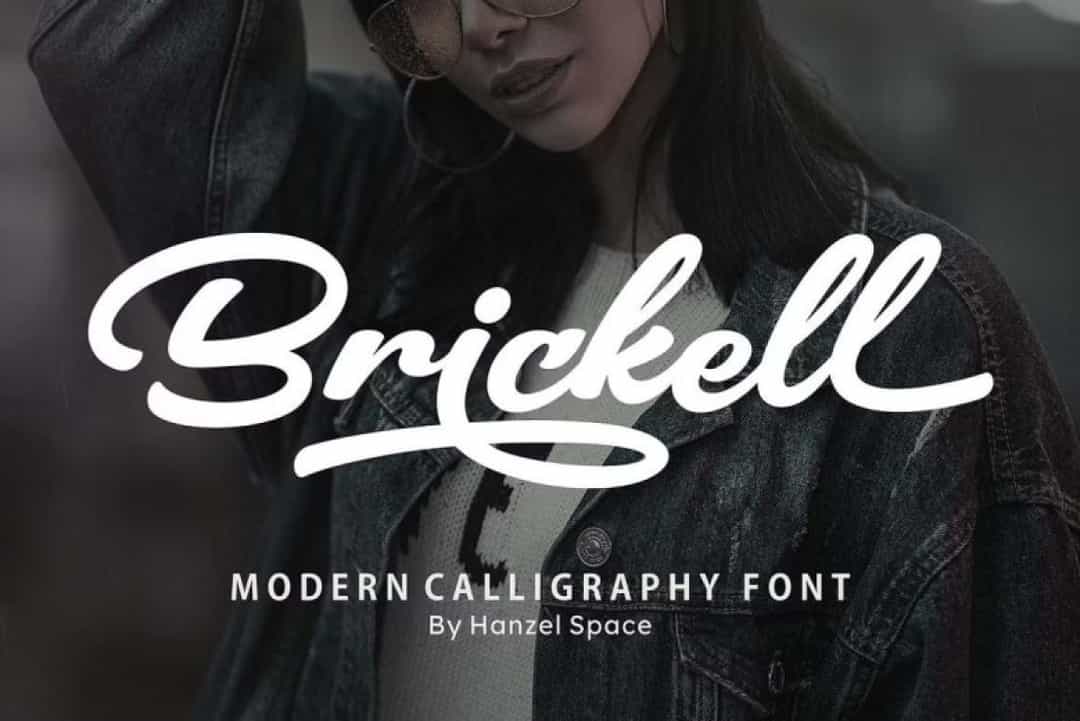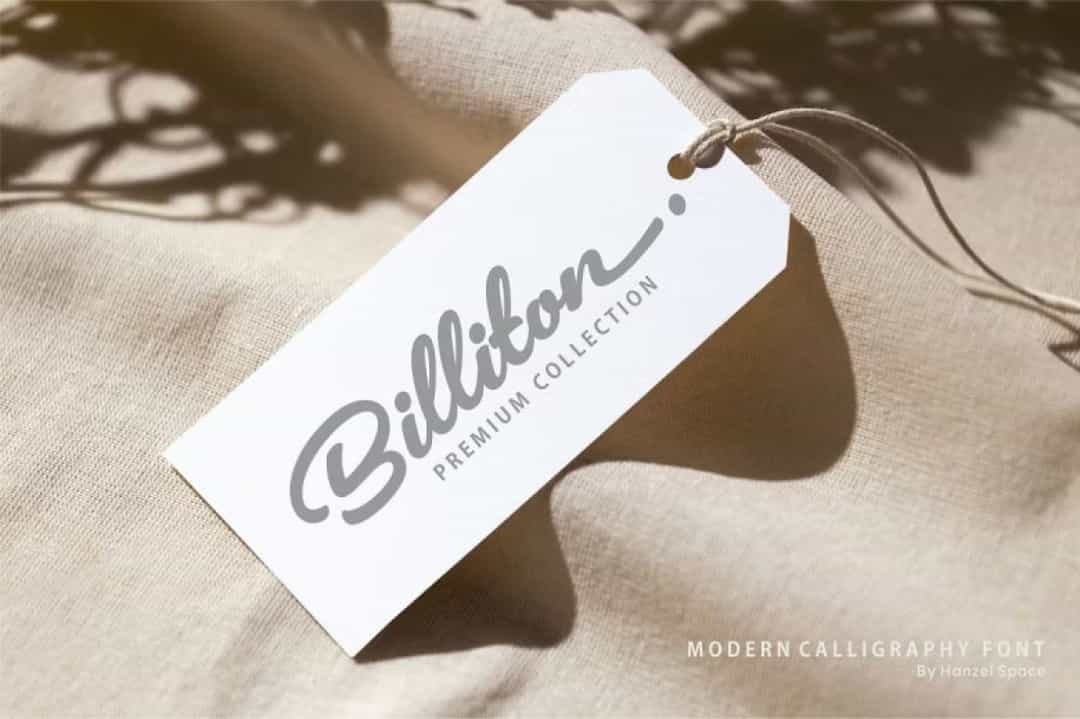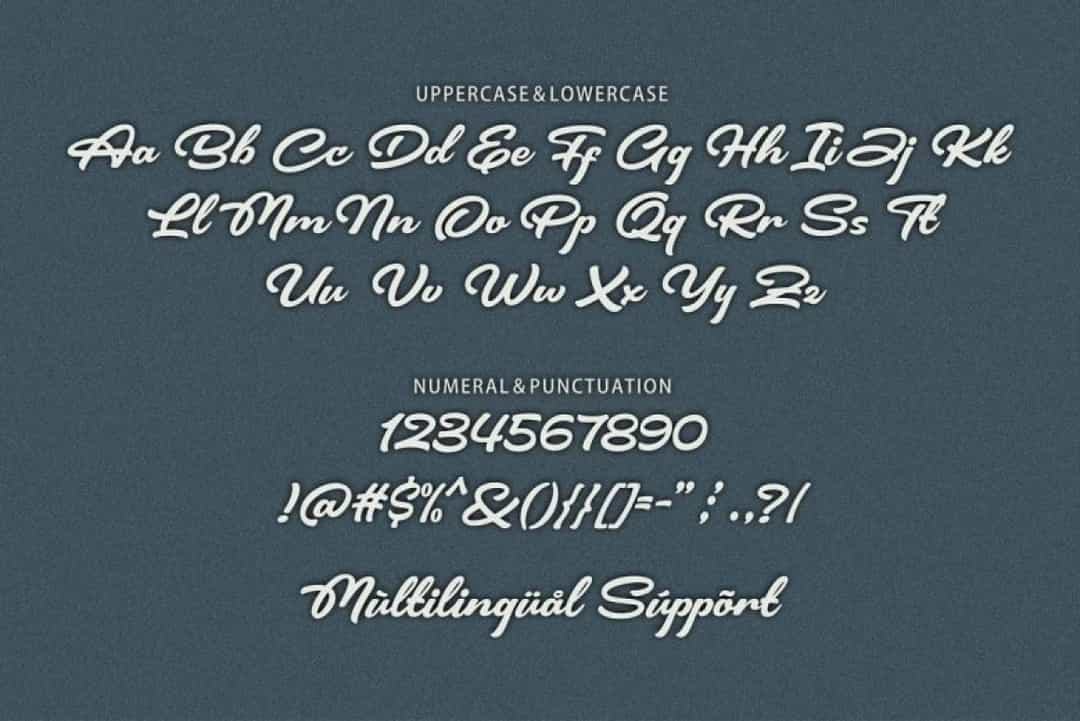
Brickell Font
Brickell is a modern script font with calligraphy style that has a nice touch and has a very unique character and look. This font is designed for you to use in creating logo/lettering style logo for your brand or your client’s brand and also it can be useful to create all the graphical items like badges, signs, packaging, headline, titles, T-shirt and others.